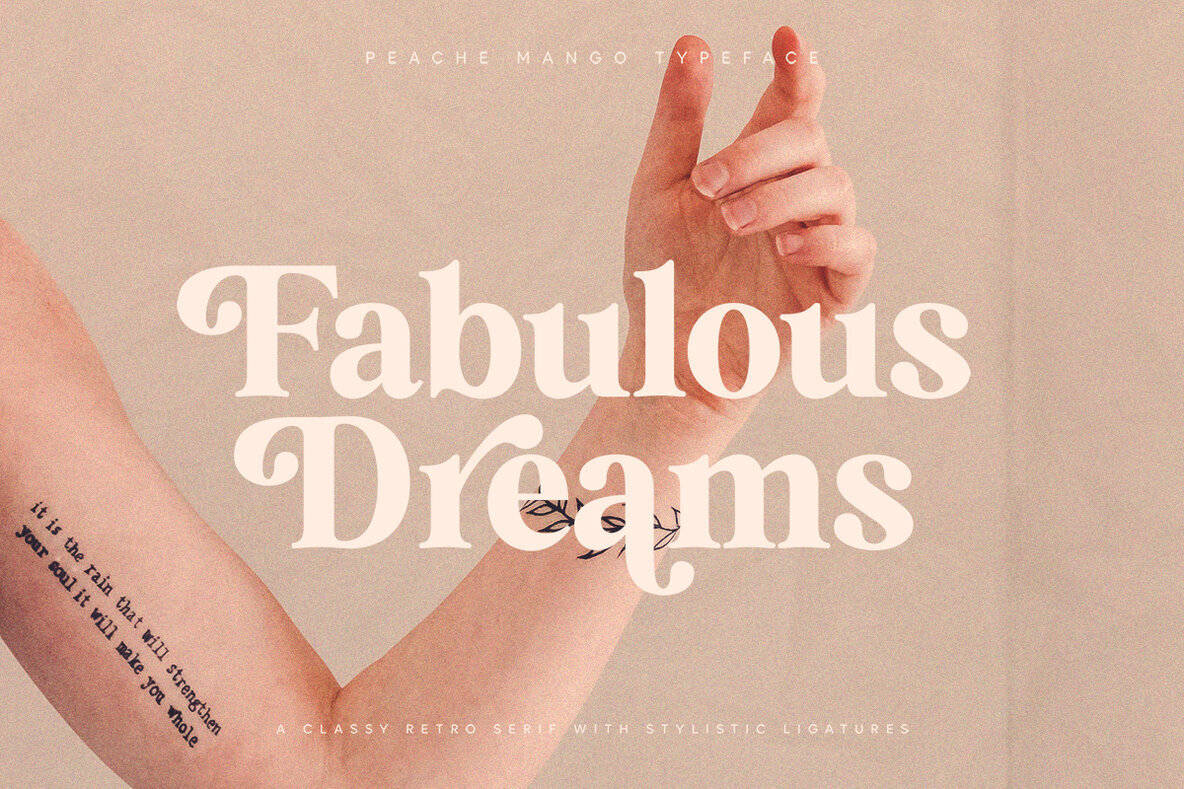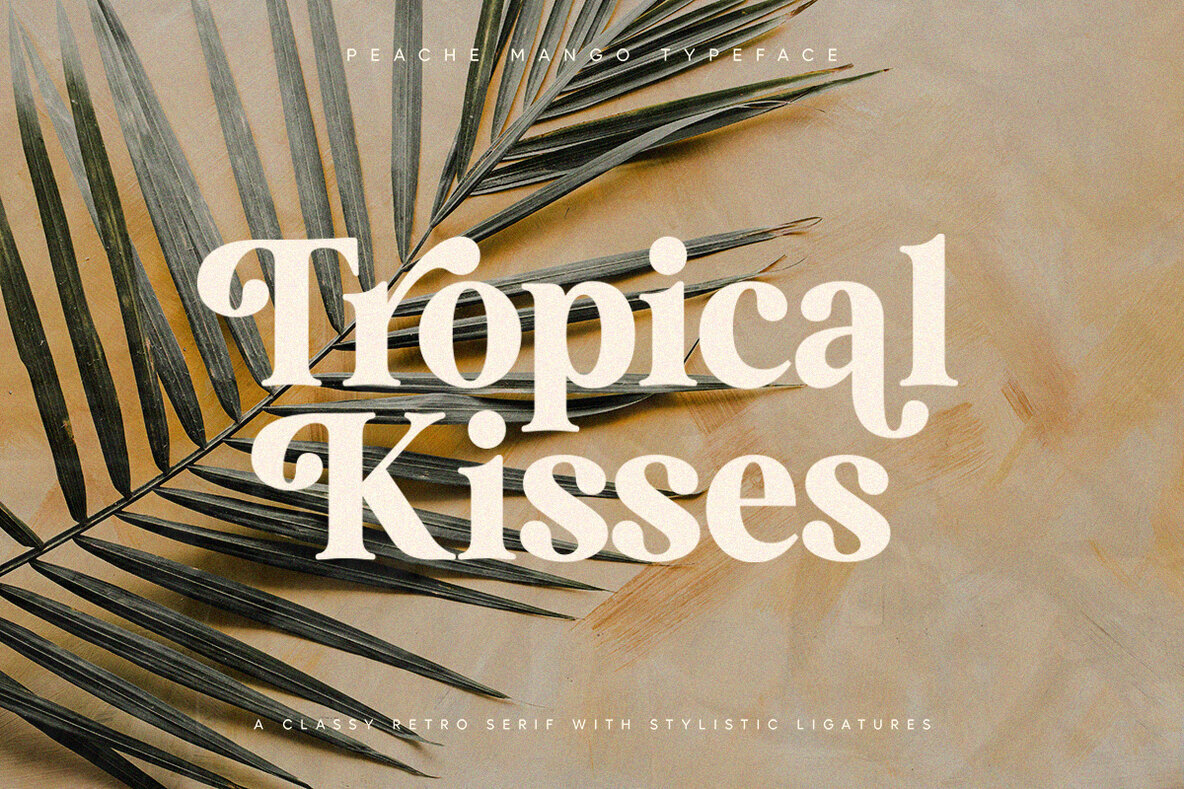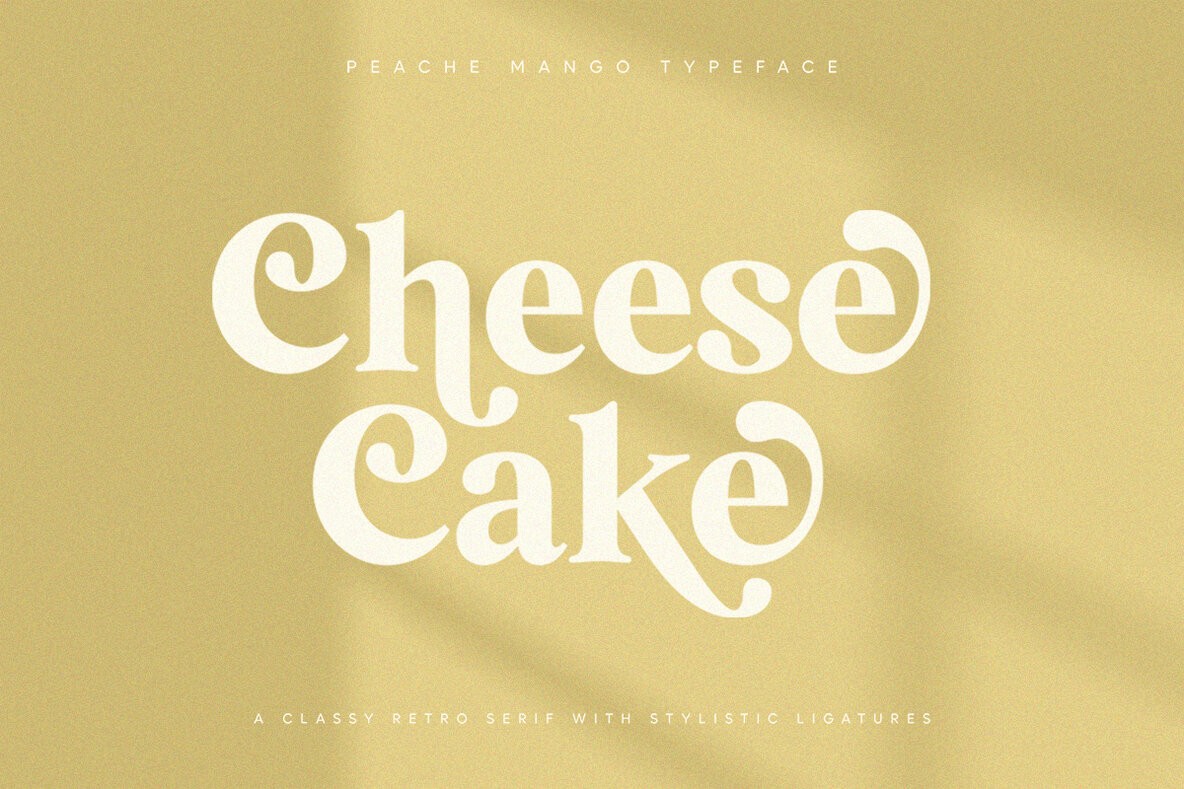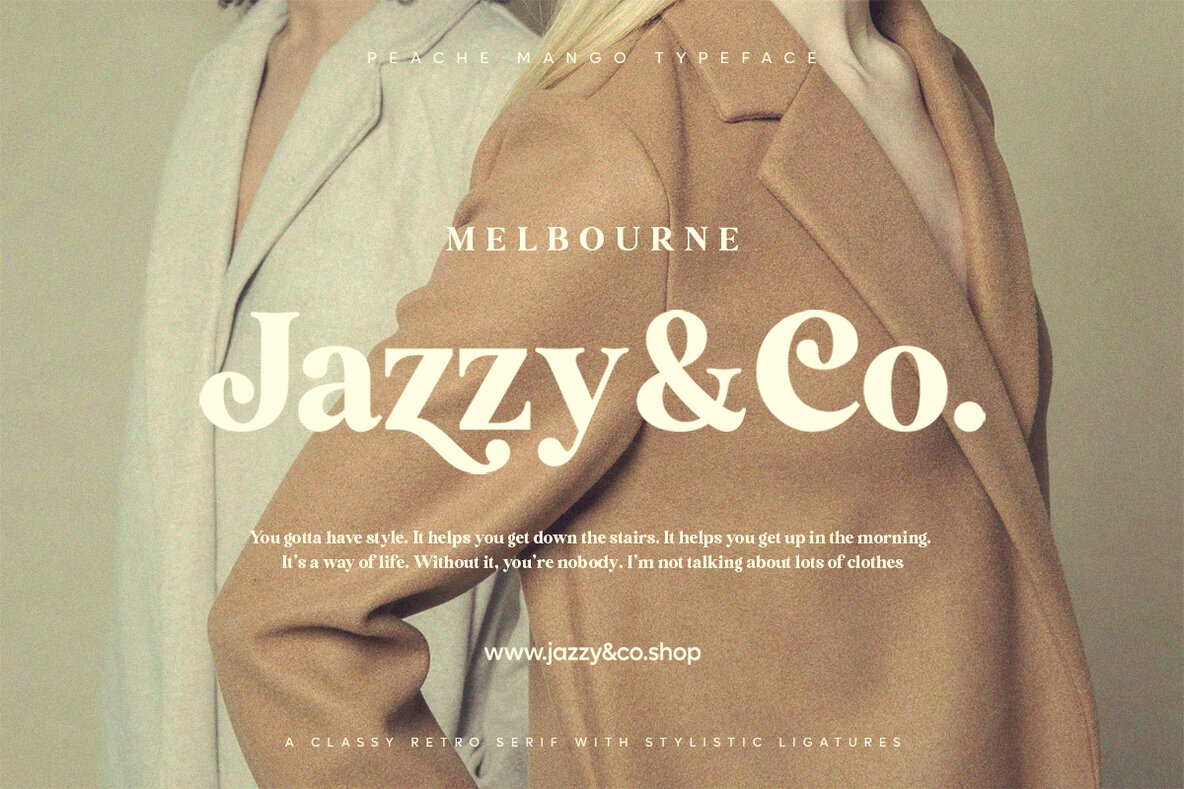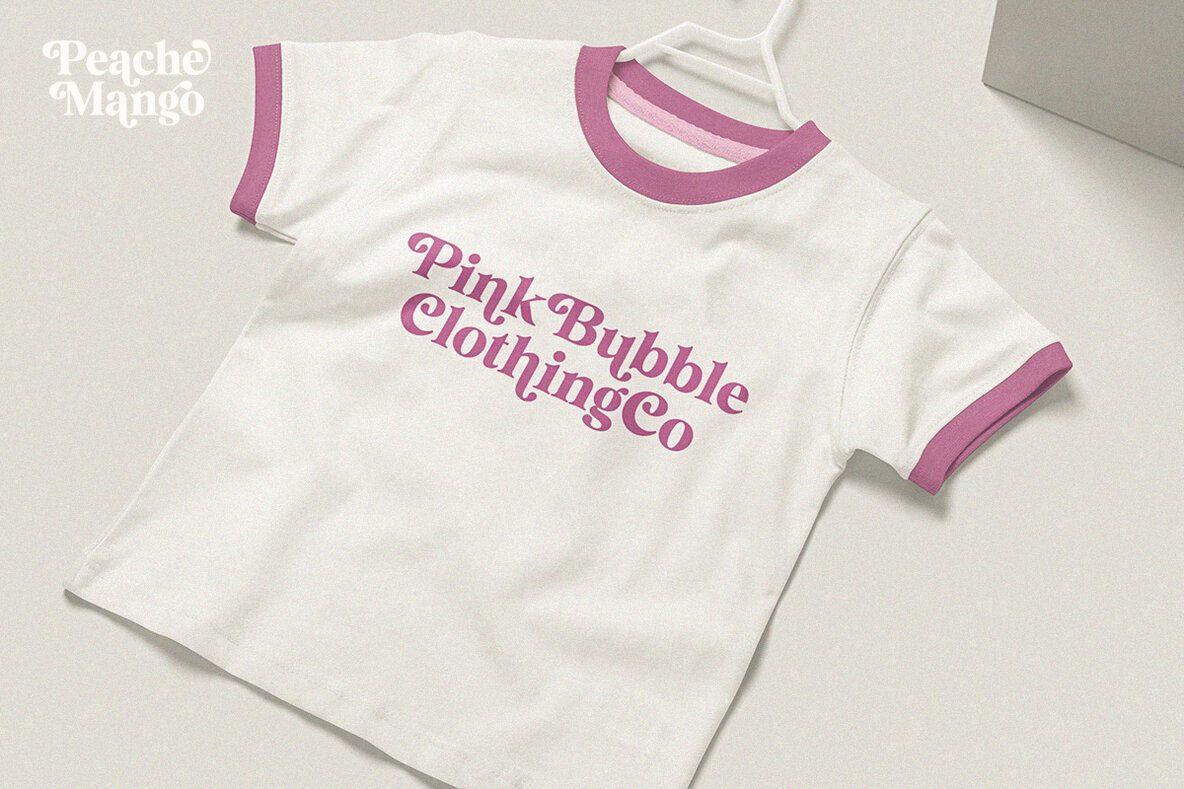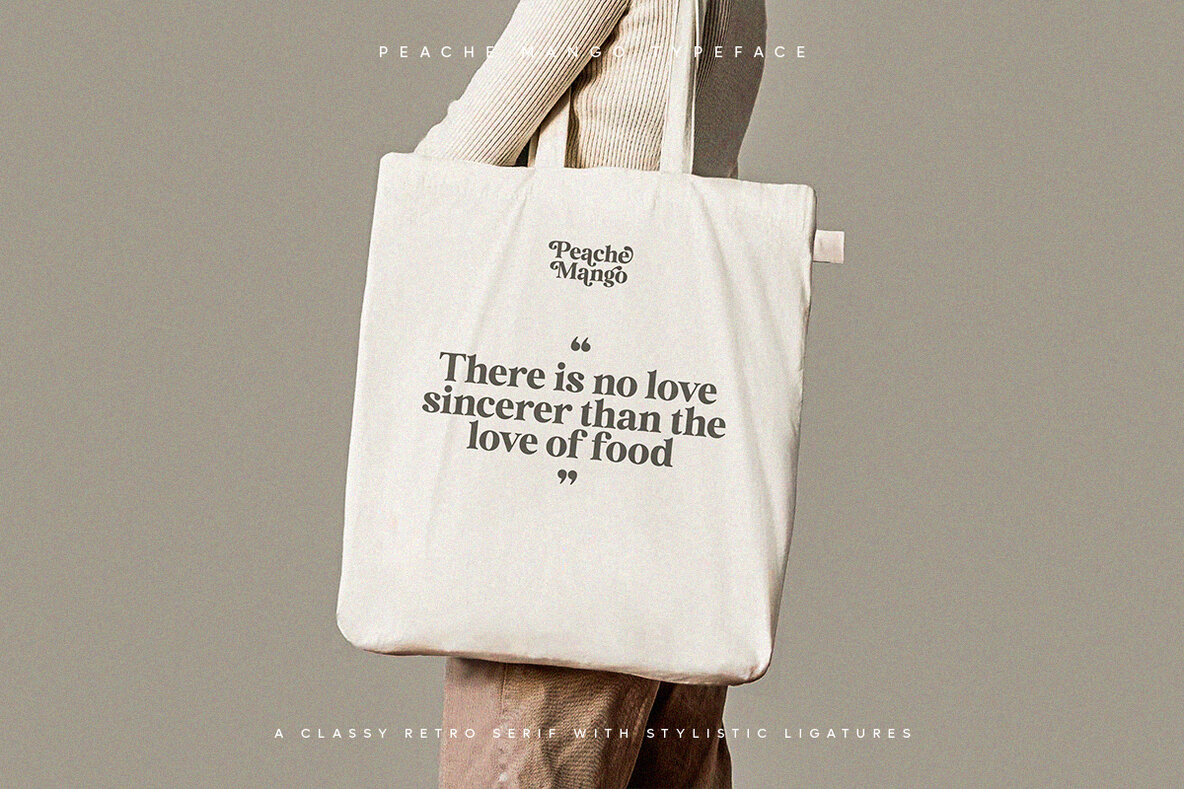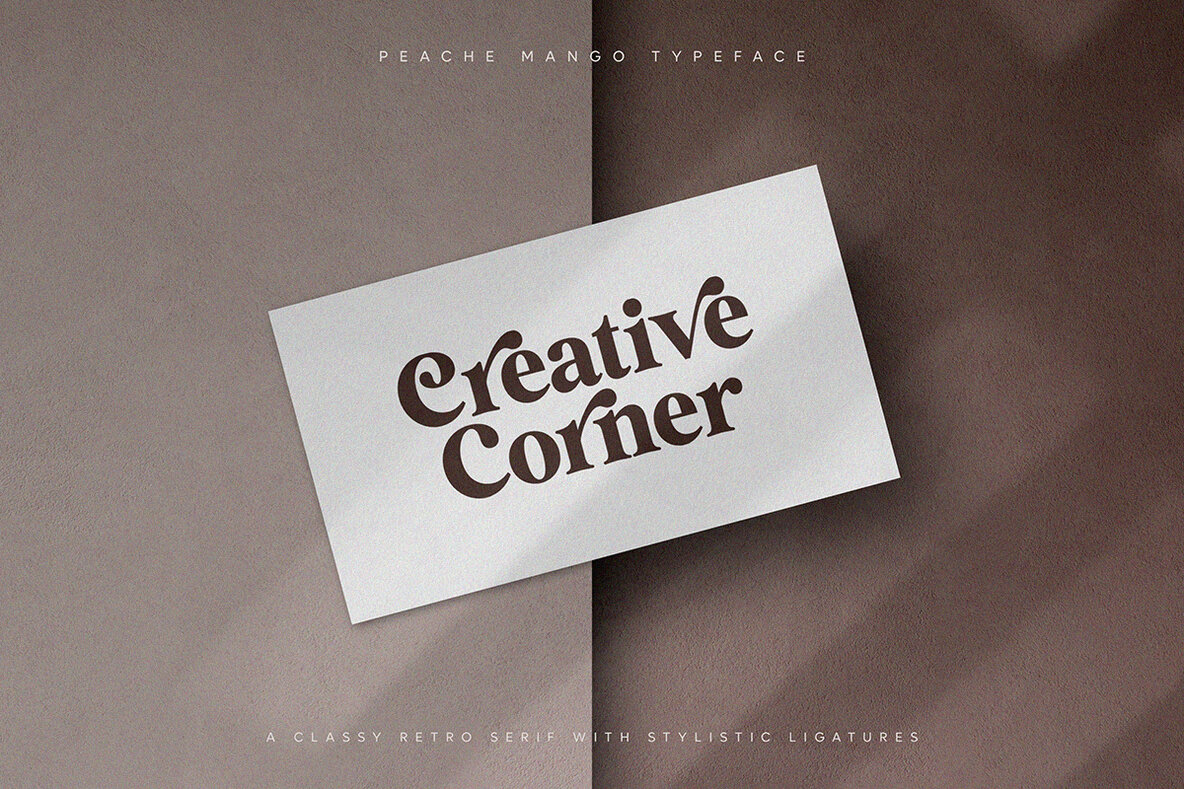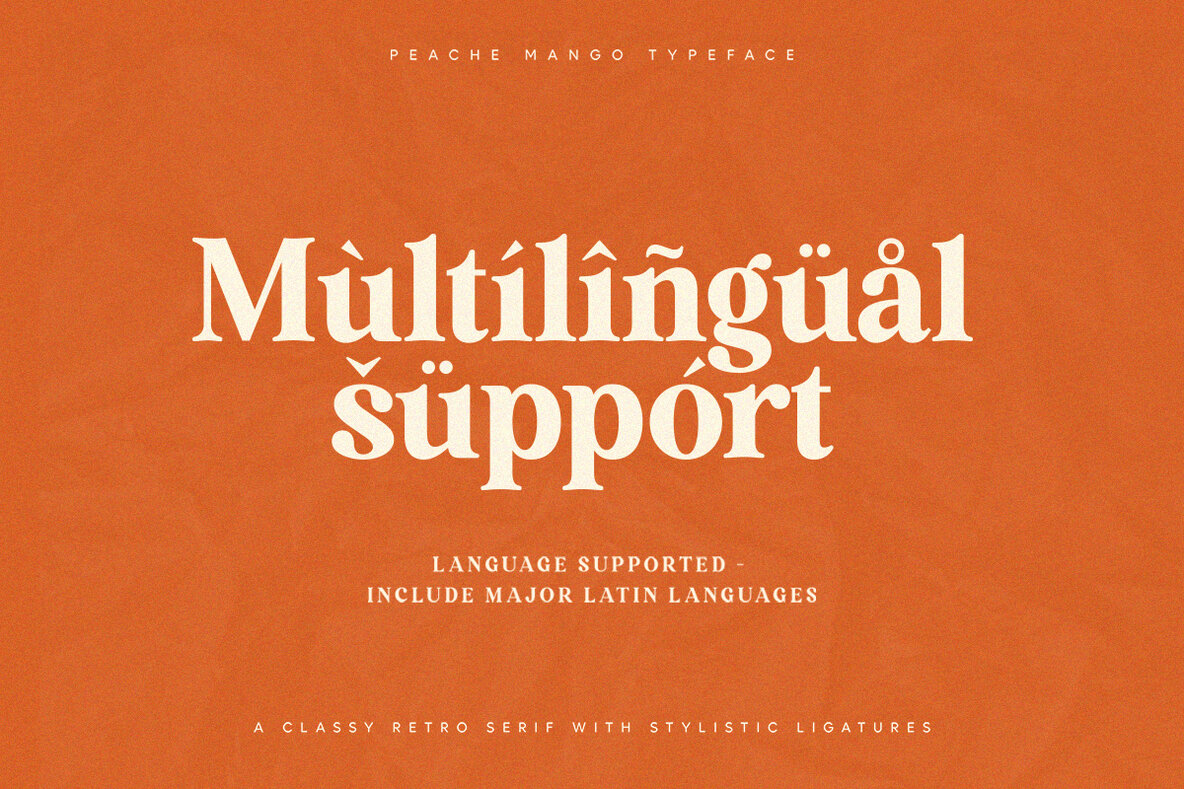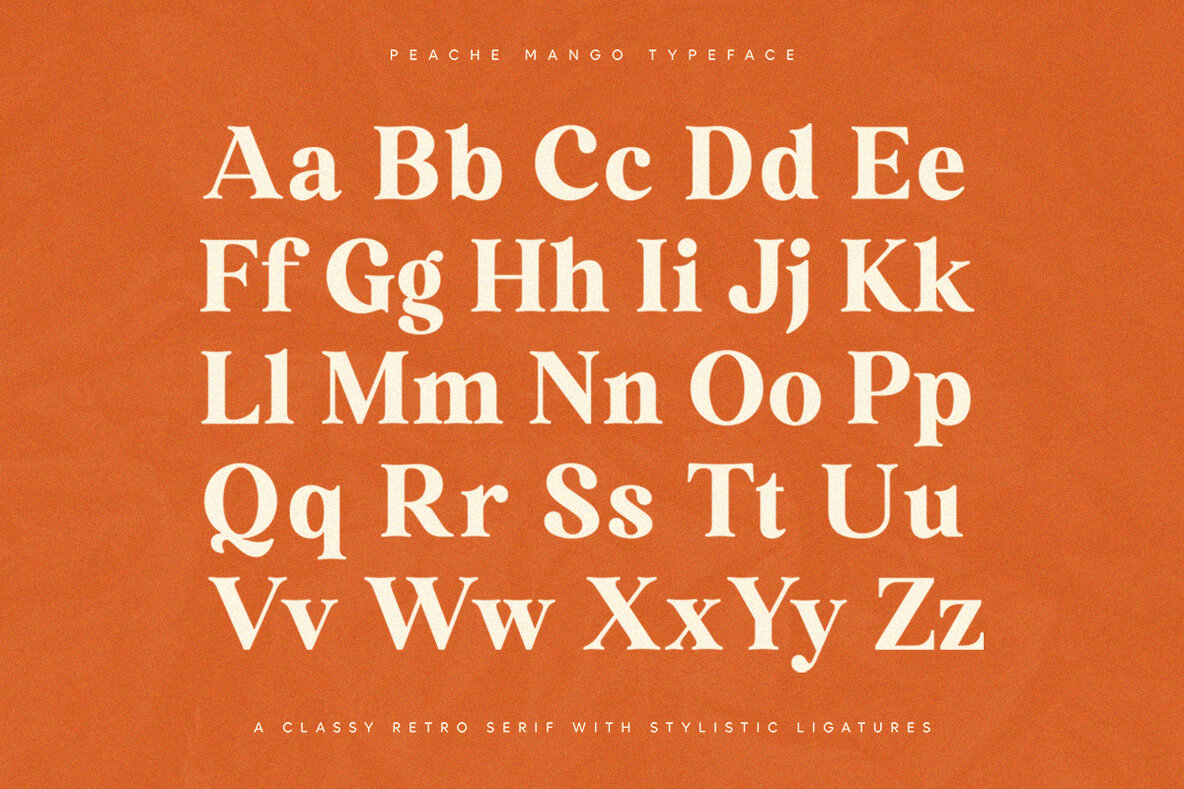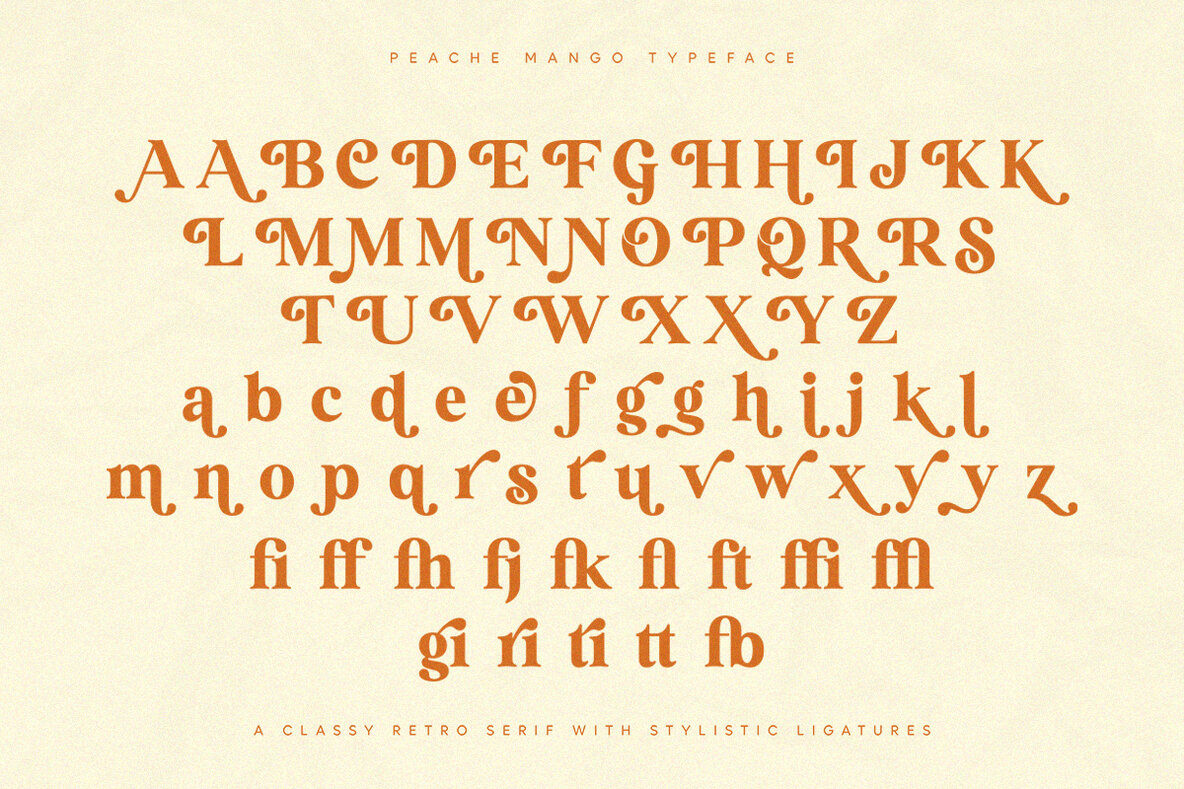
Peache Mango Font
Peache Mango
Peache Mango is a Classy Retro Serif typeface that looks incredible in both large and small settings as a display. Suitable for any branding purpose.